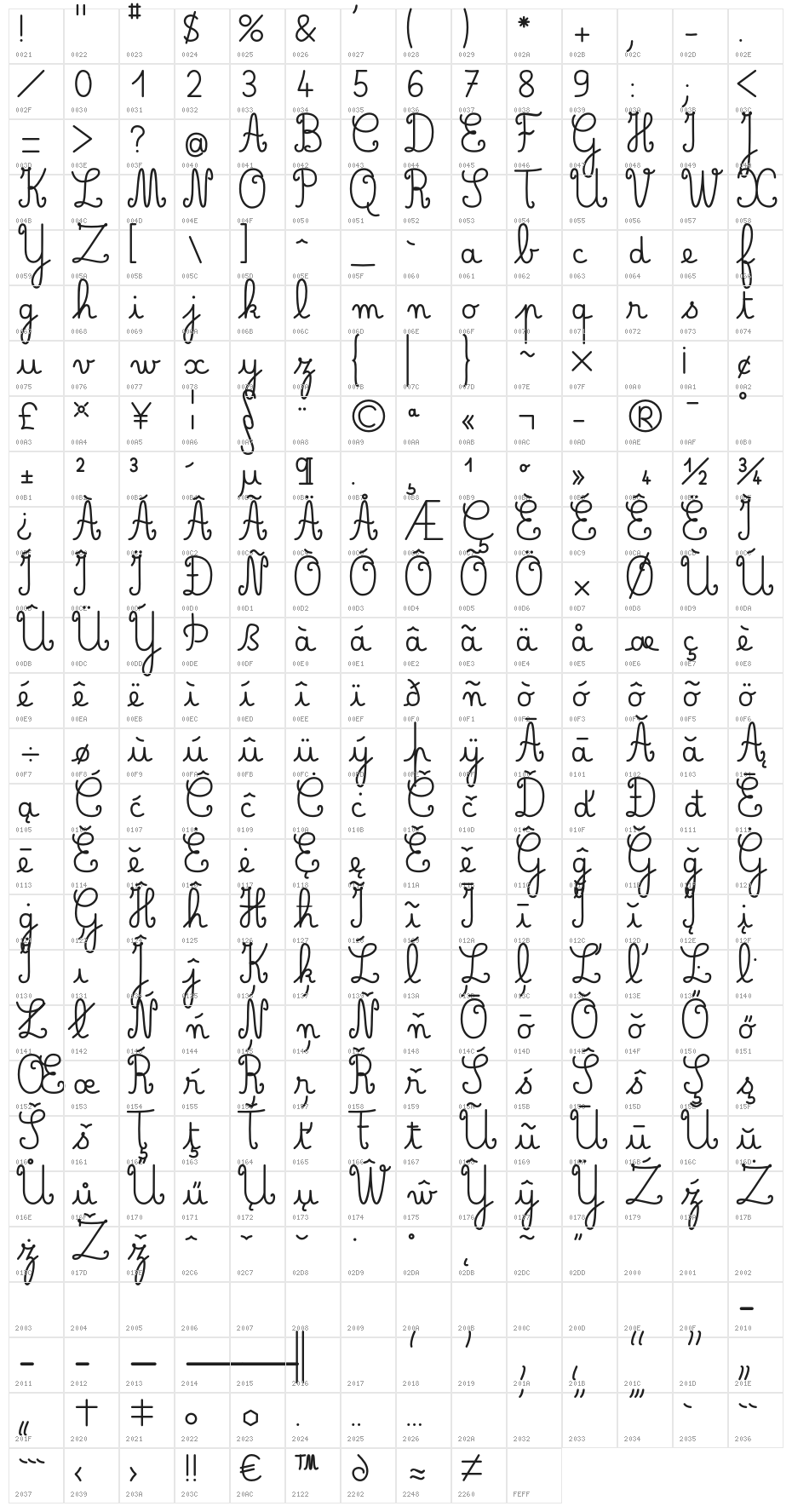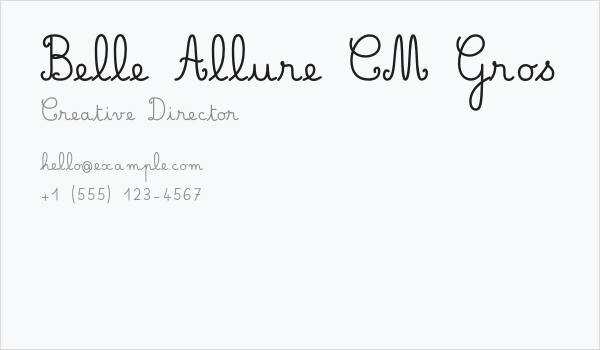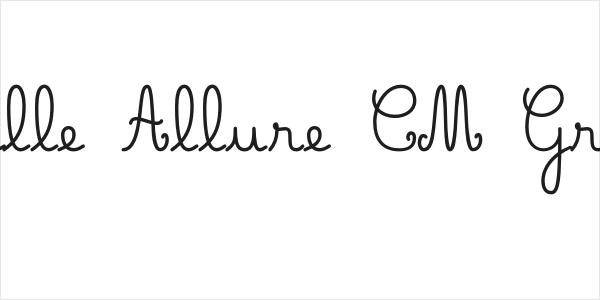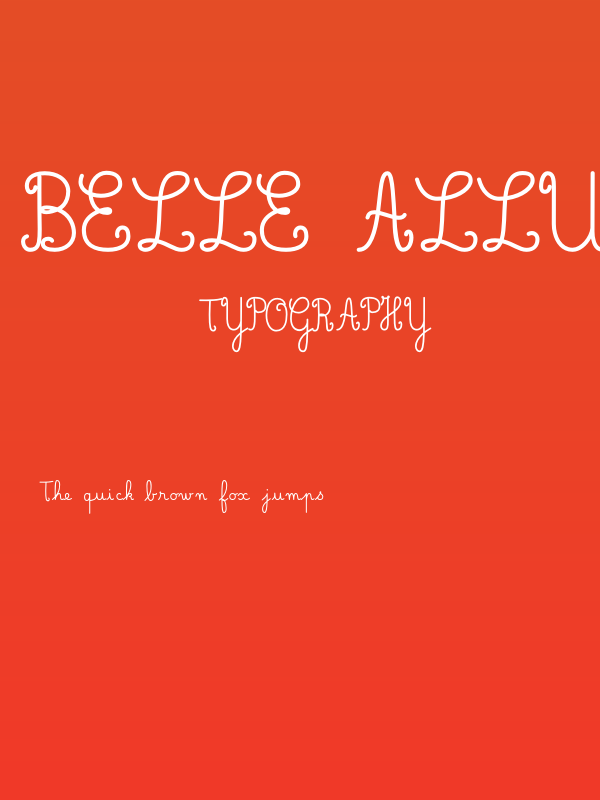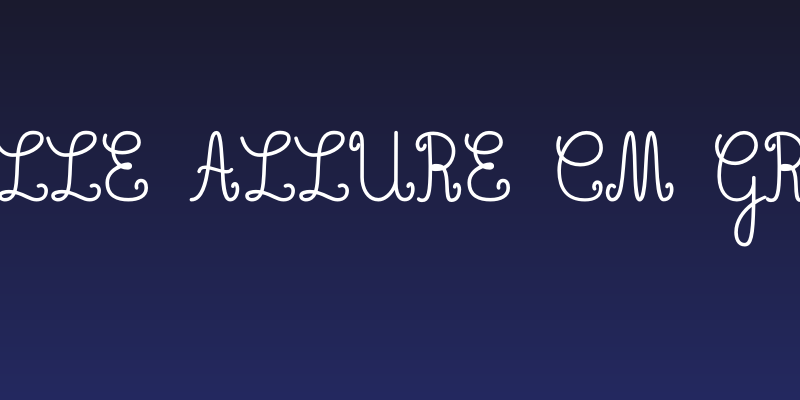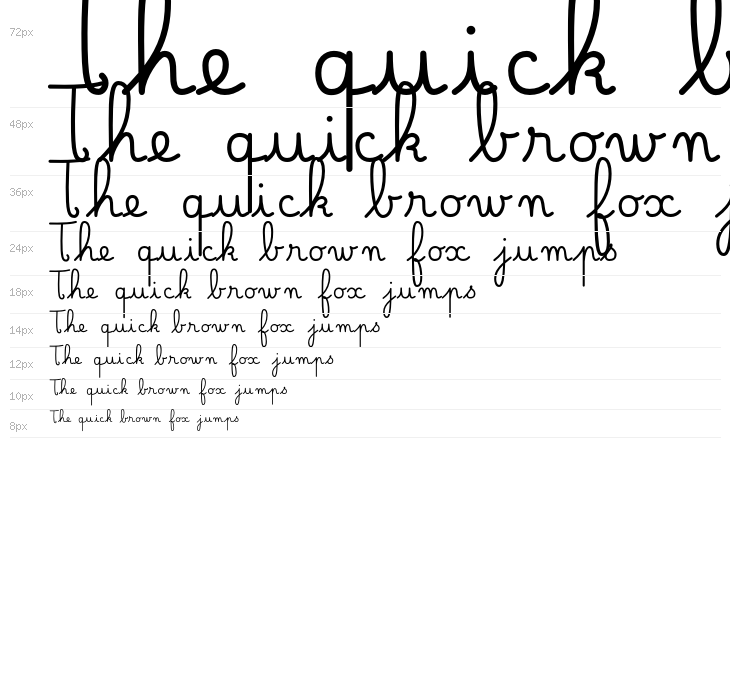
Belle Allure CM Gros Font
Belle Allure CM Gros Description
This font features a playful and whimsical script style, characterized by its curly and looping strokes. The uppercase letters are bold and decorative, with unique flourishes that add a touch of elegance and charm. The lowercase letters maintain a consistent flow, enhancing readability while still retaining the font's distinctive personality. Numbers and special characters are designed to match the overall aesthetic, ensuring a cohesive look across all text elements. The font's style is reminiscent of handwritten calligraphy, making it suitable for projects that require a personal and artistic touch.